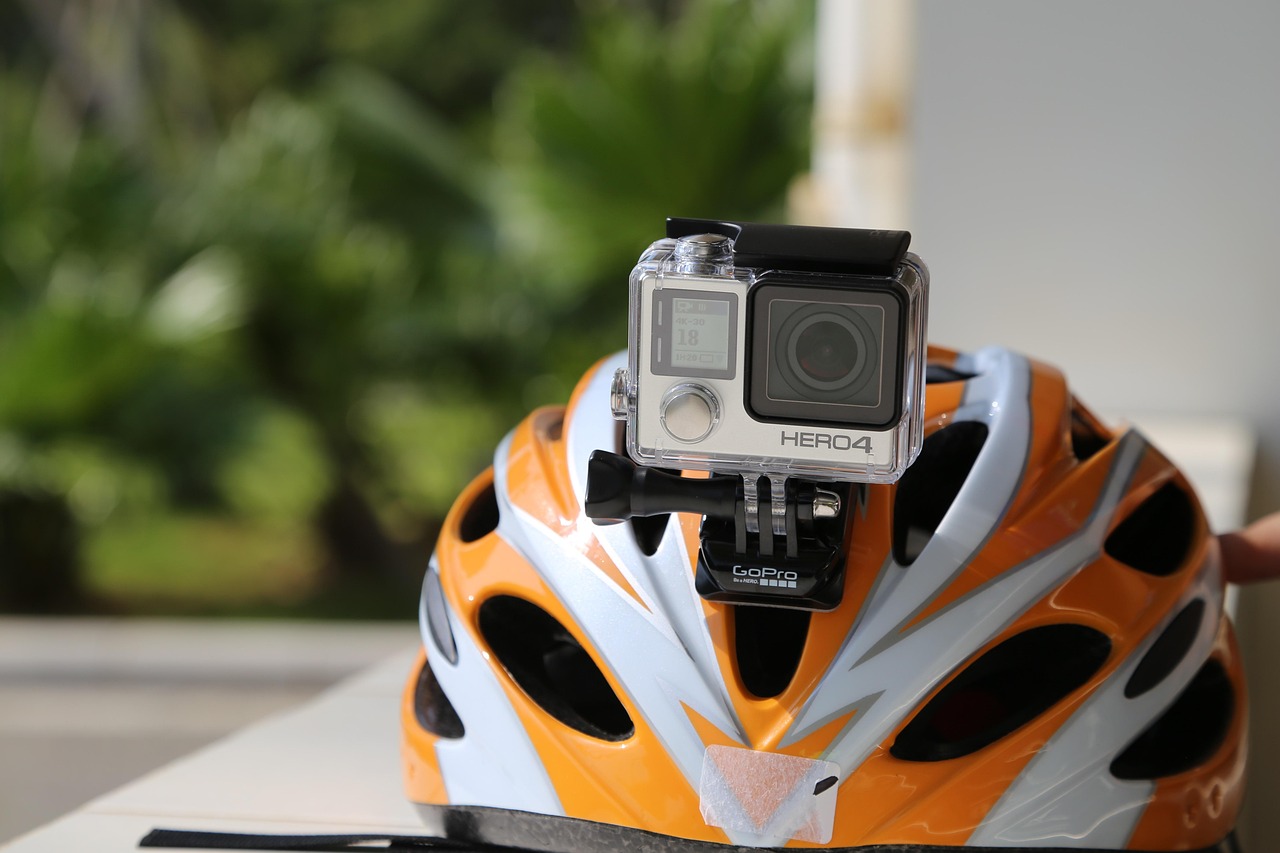
What Font Does GoPro Use? The GoPro Font Explained
Wondering what the GoPro font is? The “GoPro” wordmark is custom bold lettering with a distinctive squarish, engineered feel, while the brand’s wider communications use custom and proprietary type. Neither is a font you can simply install. This guide explains the wordmark, the brand type, and the free fonts that get you closest to GoPro’s rugged, action-ready look.
What font is the GoPro logo?
The “GoPro” letters are custom bold lettering — a trademarked wordmark rather than characters typed from a stock font. The letterforms are heavy, squarish, and tightly built, with a slightly engineered, technical feel that suits a rugged camera brand. The squared corners and even stroke weight give it a tough, durable presence that reads clearly etched into product housings, screen-printed on mounts, and scaled across video overlays. Because the lettering is bespoke and protected, it cannot be legally reproduced, though its blocky character is straightforward to approximate.
What is the GoPro brand typeface?
For everything beyond the wordmark — advertising, product UI, packaging, and app overlays — GoPro uses custom and proprietary sans-serif faces built around bold, sturdy, slightly squared weights that echo the wordmark’s engineered look. The brand voice is energetic and rugged, matching its action-camera positioning, so the type carries weight and structure rather than softness. Where the exact corporate specimen is not publicly documented, treat the GoPro brand type as a bold squarish/grotesque sans rather than a single named retail font you can buy.
Why does GoPro use a bold squarish sans?
Can I use the GoPro font?
Free and paid alternatives to the GoPro font
You cannot license GoPro’s corporate faces, but several bold squarish and condensed sans-serifs deliver the same rugged, engineered feel. Eurostile (paid) is a strong paid reference for the squared, technical character. For free options, Saira, Archivo, and Oswald are excellent stand-ins depending on how condensed you want the result.
| Use case | Font (paid reference) | Free alternative |
| GoPro-style bold wordmark / headline | Eurostile Bold (paid) | Saira (free) |
| Sturdy body / marketing text | DIN Next (paid) | Archivo (free) |
| Condensed signage / overlays | Bank Gothic (paid) | Oswald (free) |
| UI / camera app text | Akkurat (paid) | Inter (free) |
How do I get the GoPro look in my own design?
How has the GoPro identity evolved?
GoPro grew from founder Nick Woodman’s 2002 wrist-strap camera idea into the defining brand of the action-camera category, and its bold, squarish wordmark has carried that rugged spirit throughout. The blocky, engineered lettering signals exactly what the product promises: a tough little camera that survives surf, snow, and dirt. As GoPro expanded from hardware into editing apps, subscriptions, and a huge user-generated video ecosystem, it refined its type and digital design system toward cleaner, sturdier sans cuts that hold up in on-screen overlays and small app UI. Through every refresh the squarish, bold character of the wordmark stayed central, because it carries the brand’s durability story. The constant is structure: an action-sports brand has to look tough and capable on a helmet mount, a phone screen, and a campaign billboard alike, and bold, squared type delivers exactly that. That balance of a fixed, characterful wordmark plus a practical evolving brand face is a pattern you will spot across our famous brand fonts roundup.
Saira, Archivo, or Oswald: which alternative fits?
All three approximate the bold, structural character of the GoPro wordmark. Saira is the most squarish and engineered, making it the closest free match for GoPro’s technical feel across headlines and branding. Archivo is a sturdy grotesque with strong bold cuts, ideal for marketing copy and UI where you still want weight. Oswald is condensed and tall, perfect when you need impactful, space-efficient overlays on video. For most new projects chasing the GoPro look, Saira for display and Archivo for body is a reliable pairing.
The GoPro wordmark is a bold, squarish custom sans-serif — engineered and technical rather than rounded or decorative. Its closest off-the-shelf relatives are squared faces like Eurostile and DIN, or free options such as Saira and Archivo.